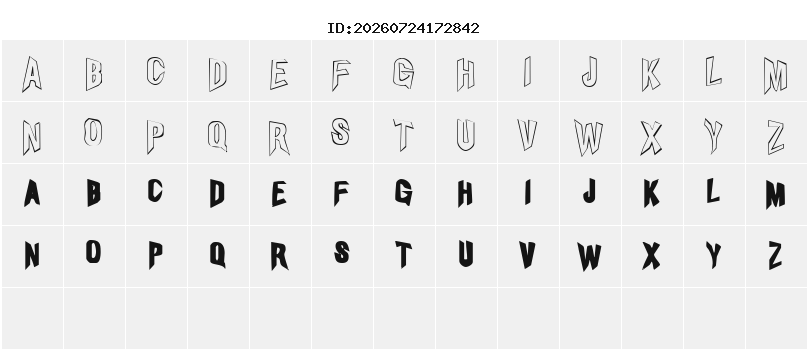
GyrlLovesBoy Preview
• Font Name: GyrlLovesBoy
• Full Font Name: GyrlLovesBoy
• PostScript Name: GyrlLovesBoy
About GyrlLovesBoy.ttf
GyrlLovesBoy.ttf is a modern, elegant sans-serif font designed for ultimate readability and visual harmony. Perfect for branding, headlines, web design, and print materials.